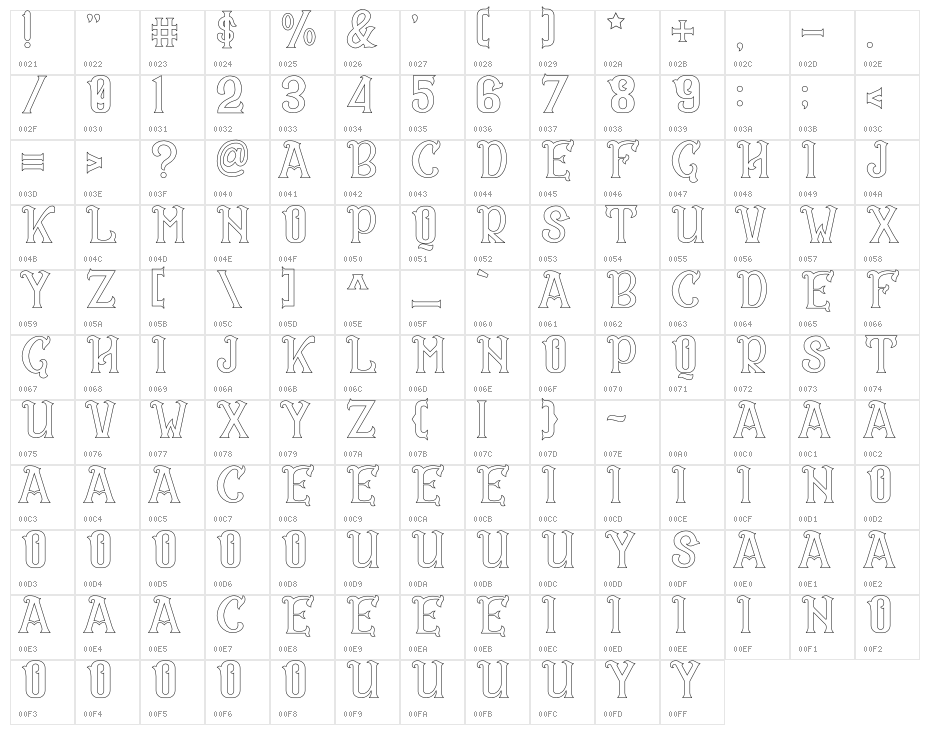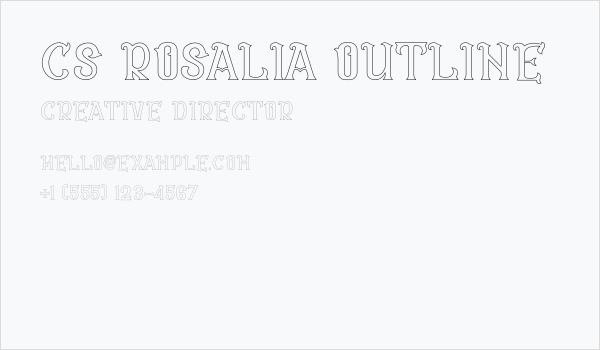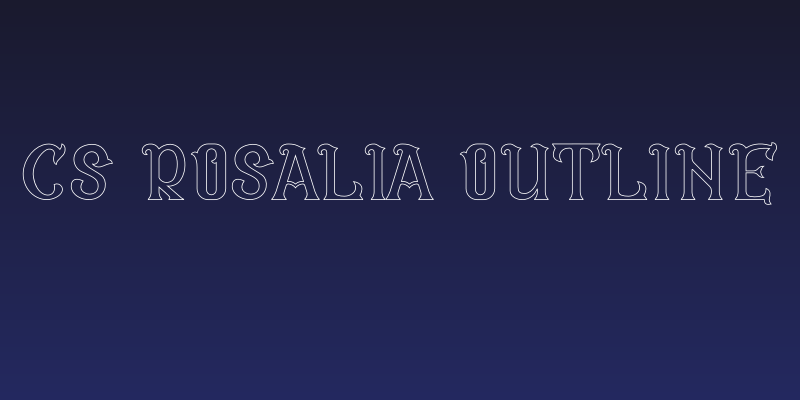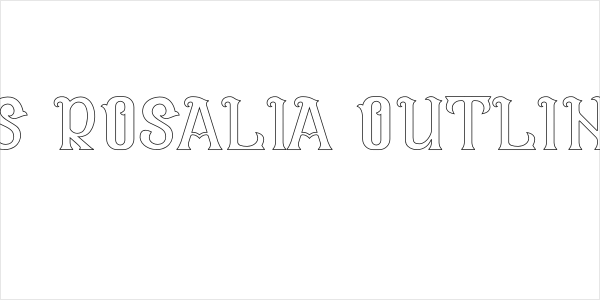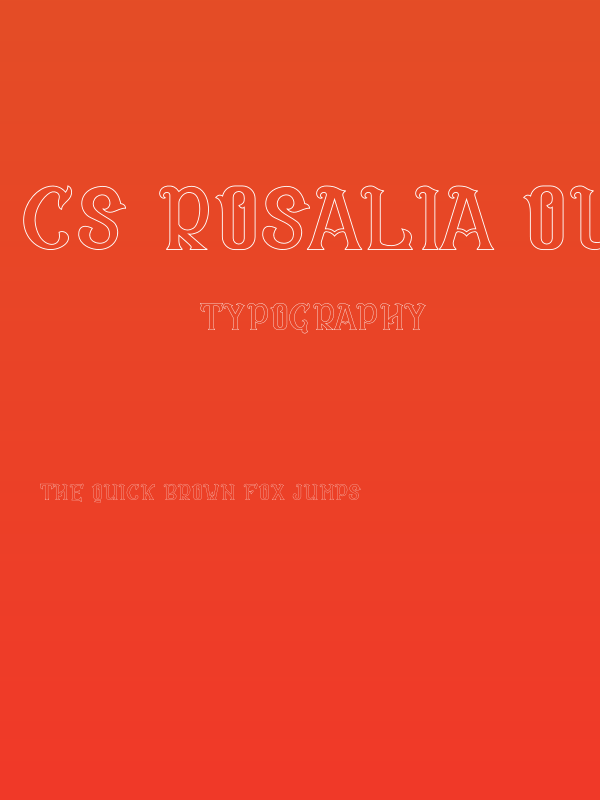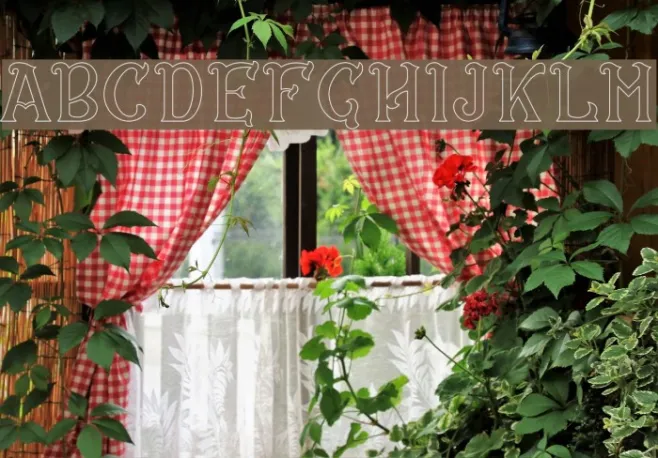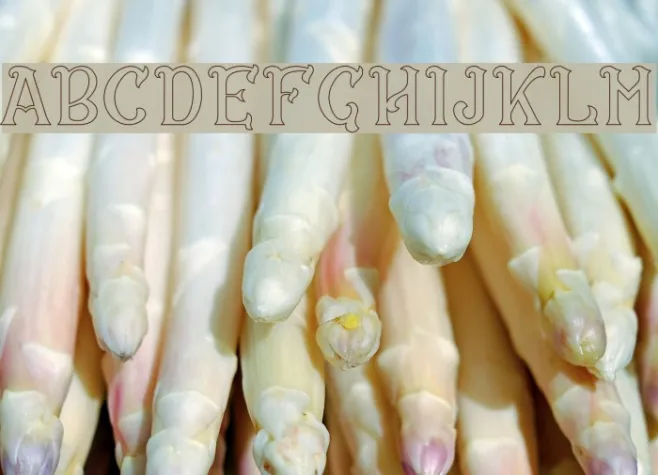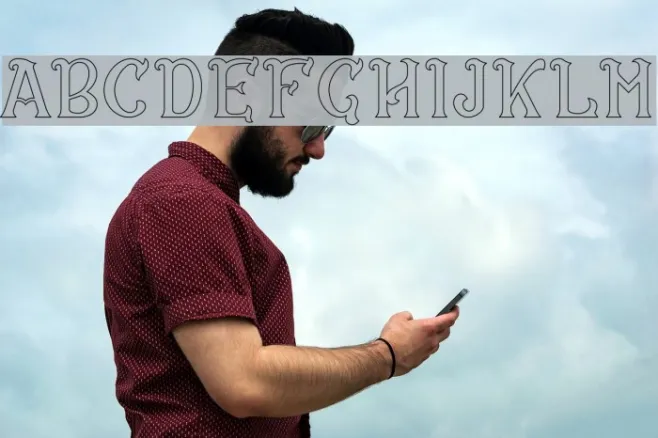
CS Rosalia Outline Font
CS Rosalia Outline Description
This font features an outline style with a decorative flair, characterized by its bold and artistic strokes. The uppercase and lowercase letters exhibit a unique blend of traditional serif elements with a modern twist, creating an eye-catching appearance. The numerals and special characters maintain this decorative theme, ensuring consistency across all glyphs. The font's outline nature gives it a light and airy feel, making it suitable for designs that require a touch of elegance and sophistication. Its intricate details and stylized serifs make it stand out, while the overall design remains balanced and harmonious.
CS-ROSALIA-OUTLINE UPPERCASE
CS-ROSALIA-OUTLINE LOWERCASE
CS-ROSALIA-OUTLINE OTHER CHARS
| Proposed Projects | Ideal for branding, posters, invitations, and any project that requires a decorative and elegant touch. |